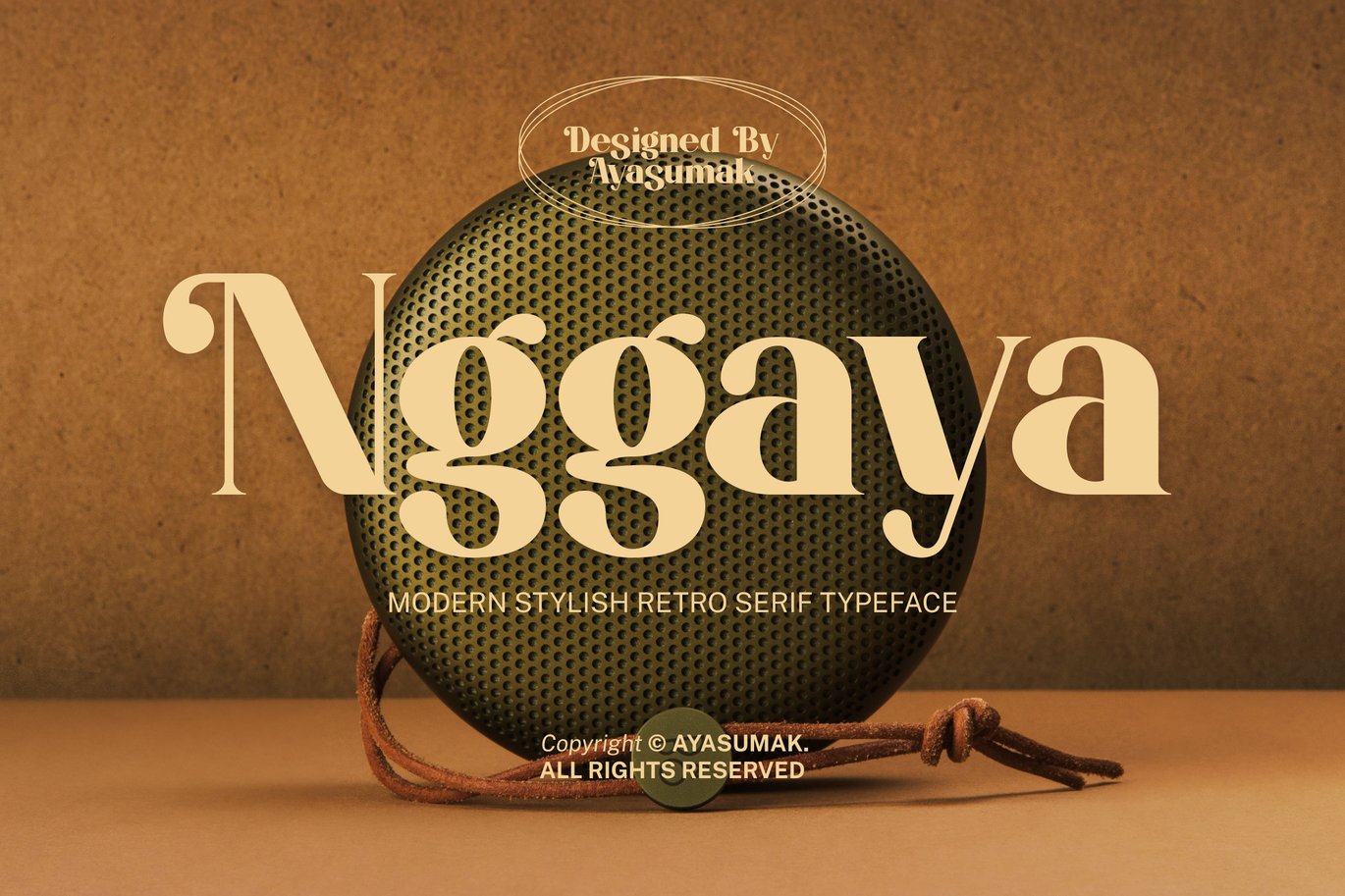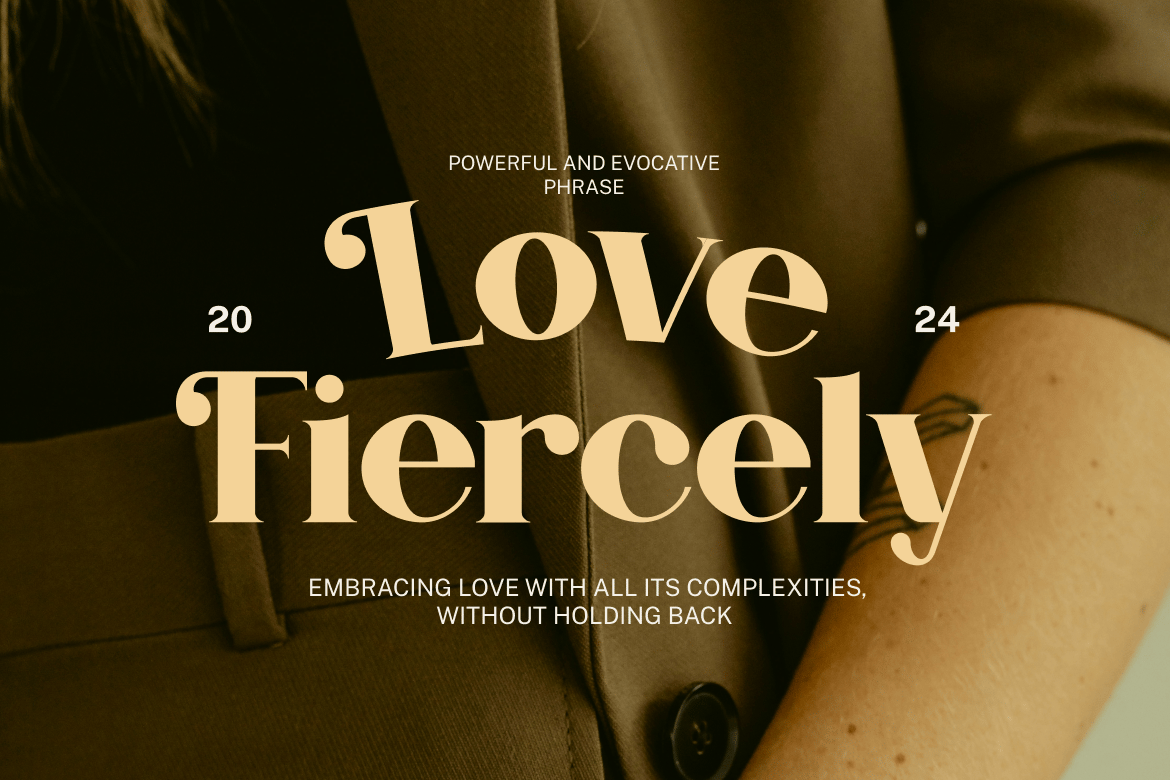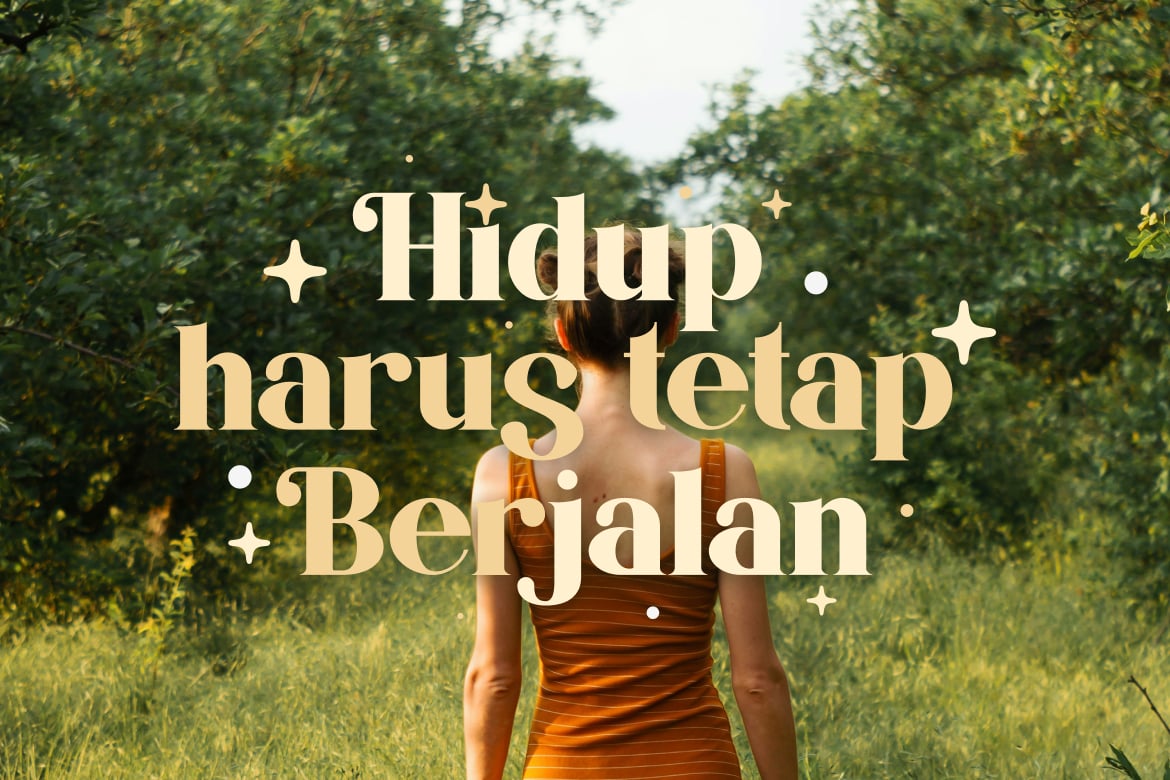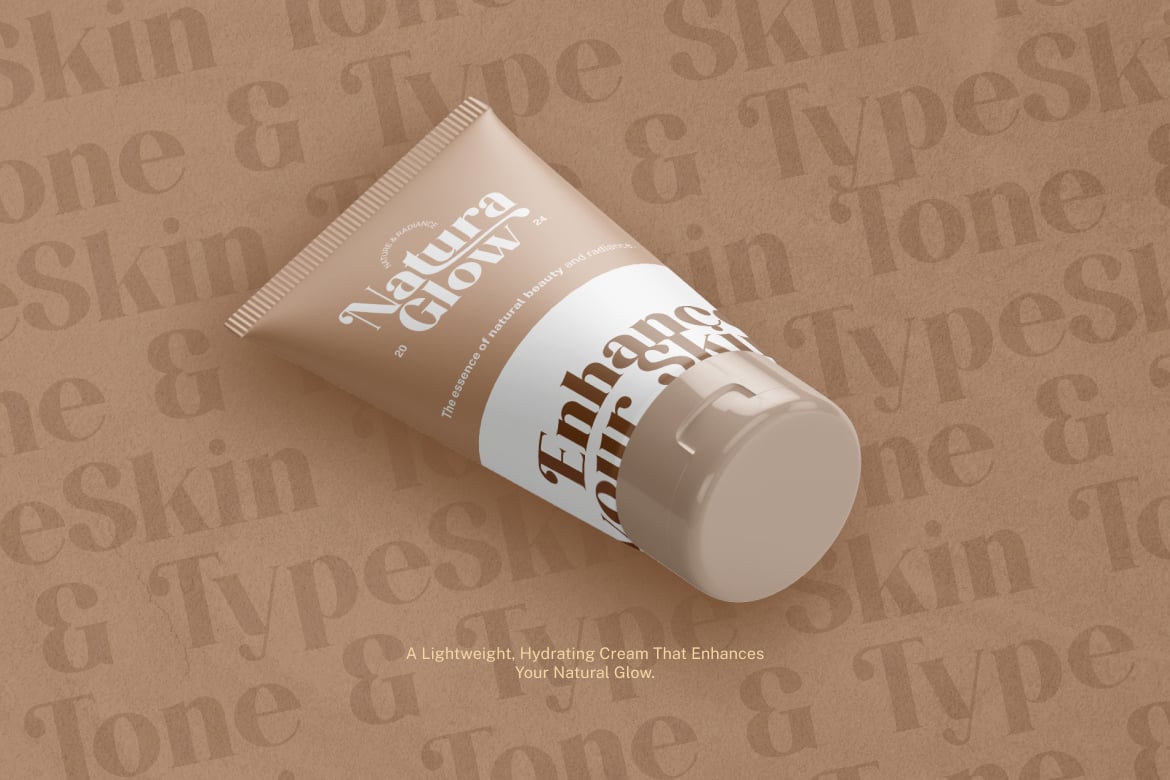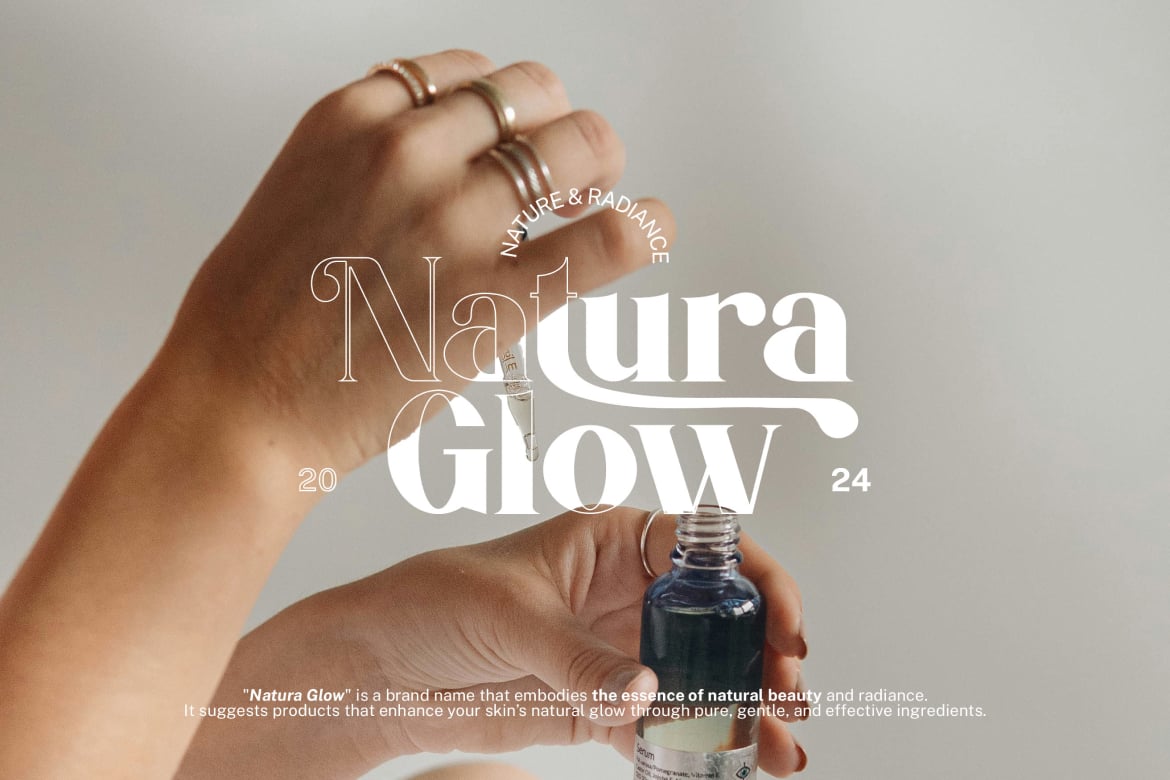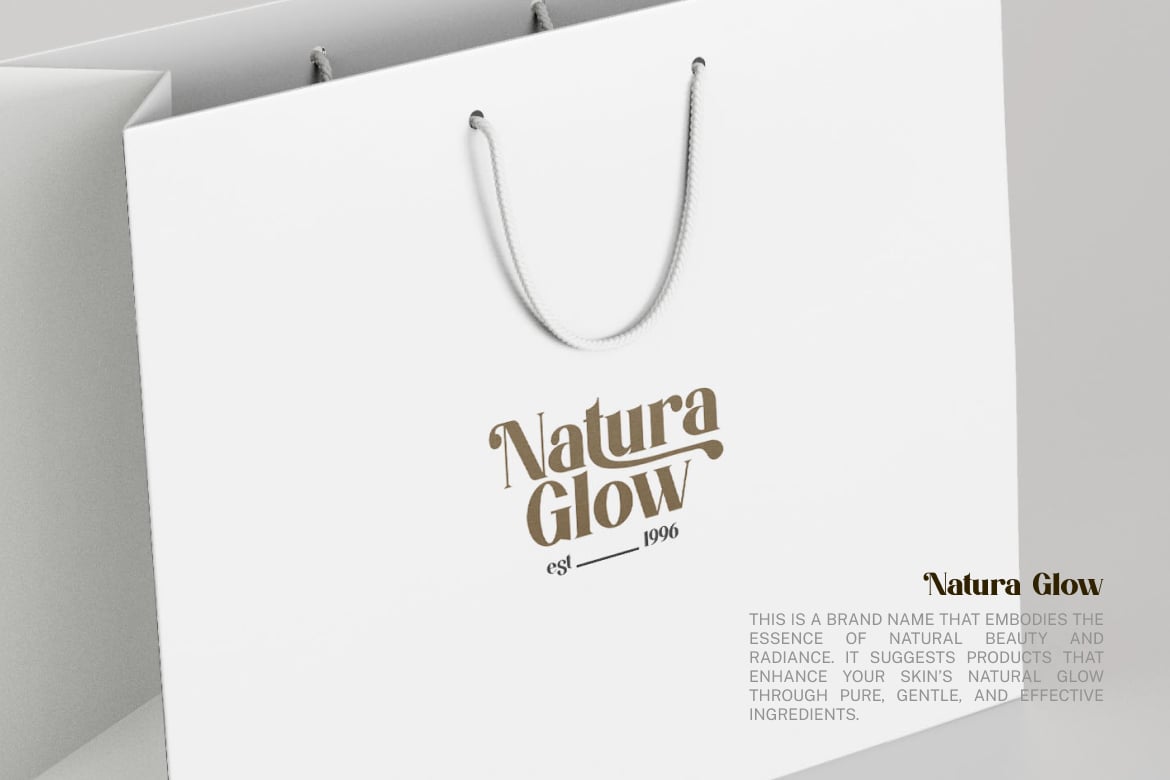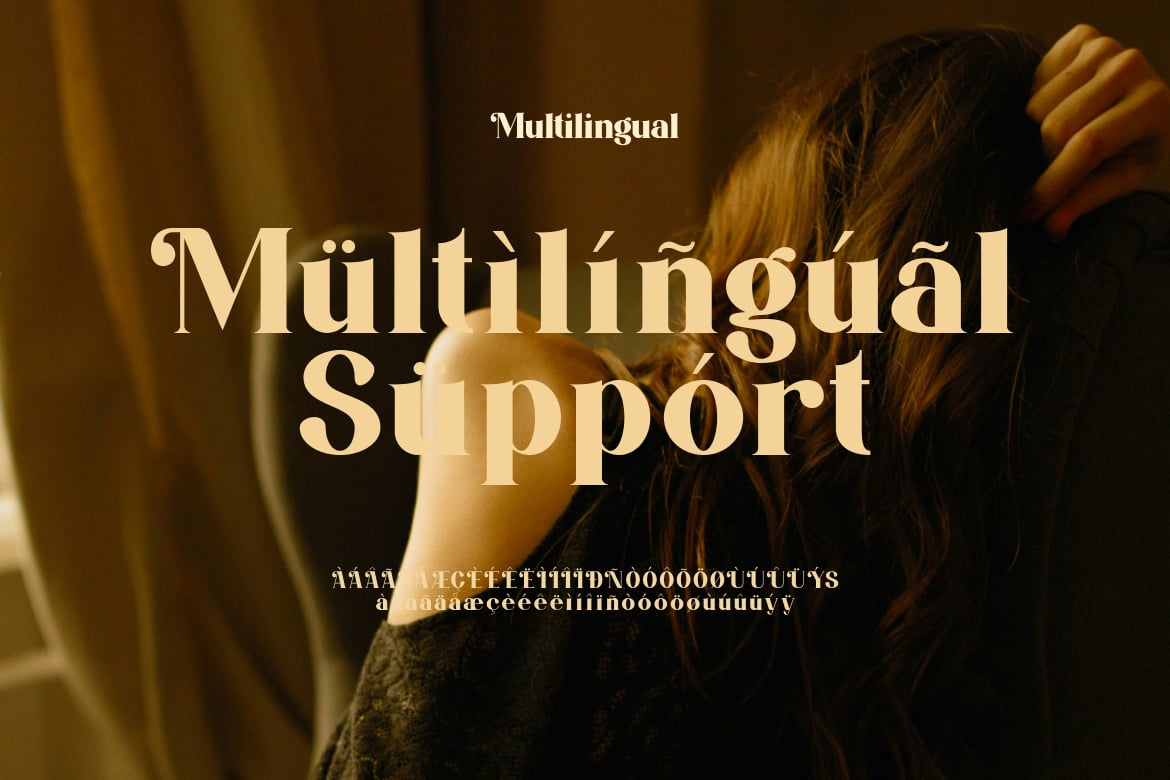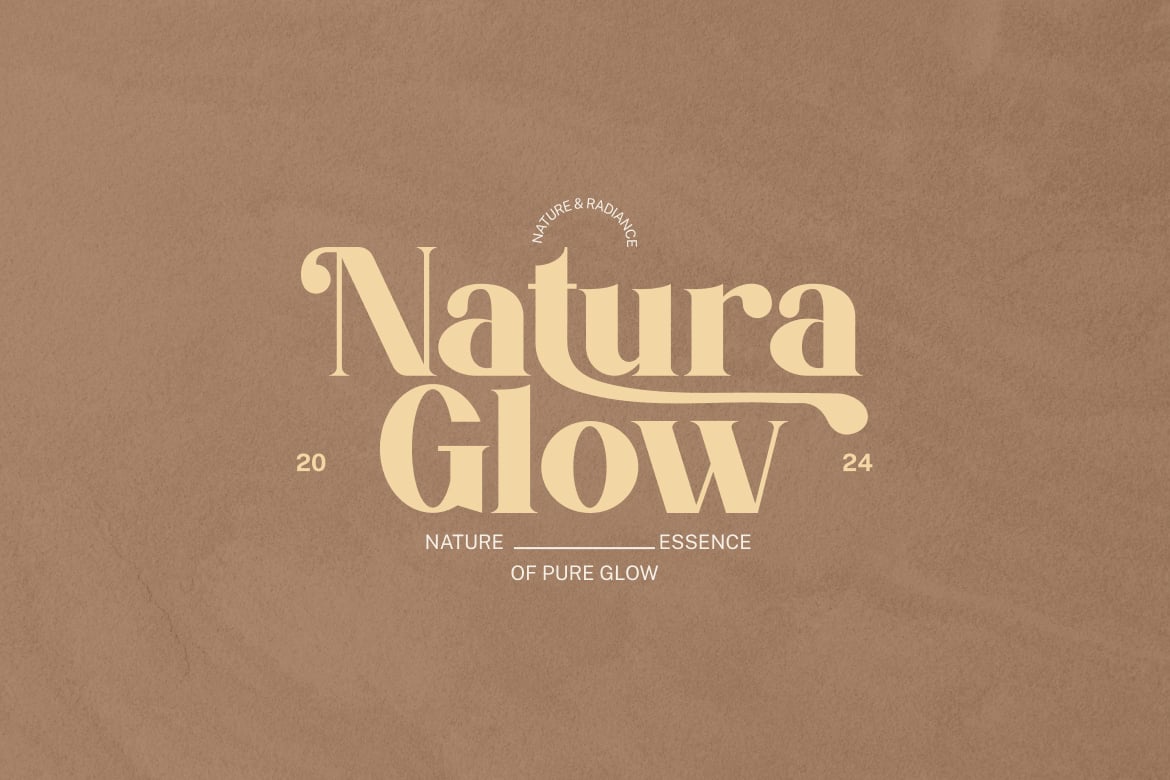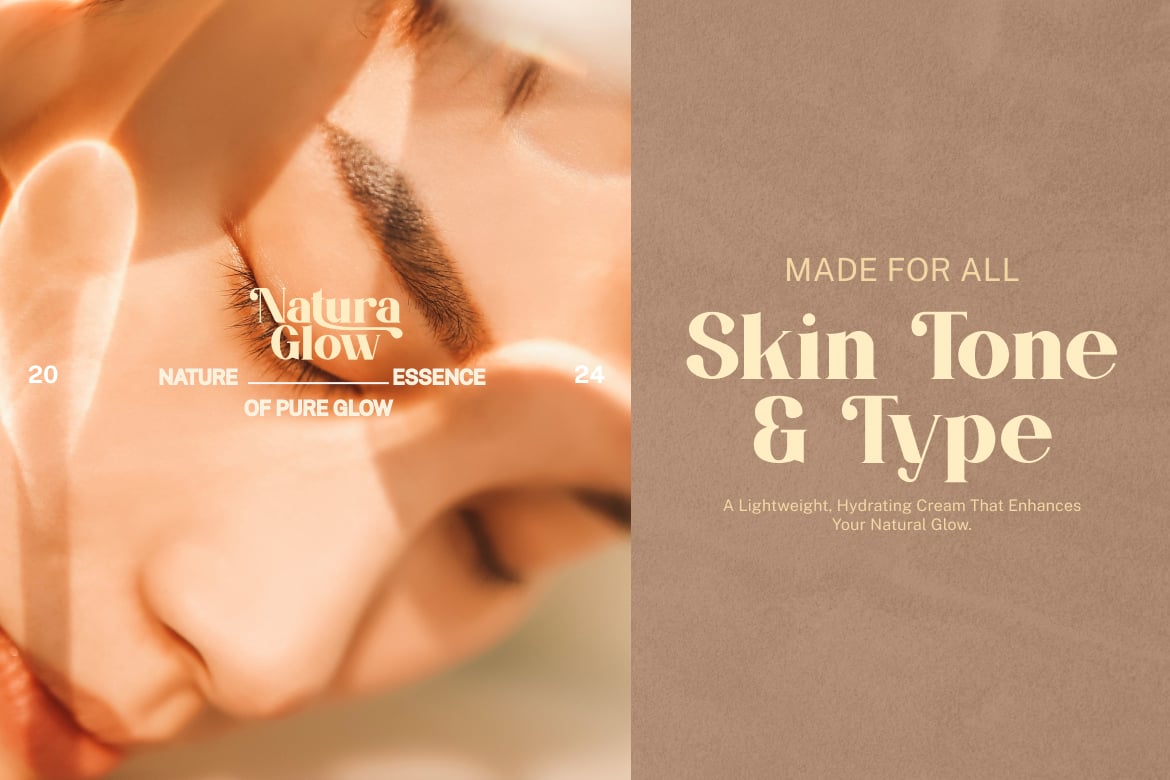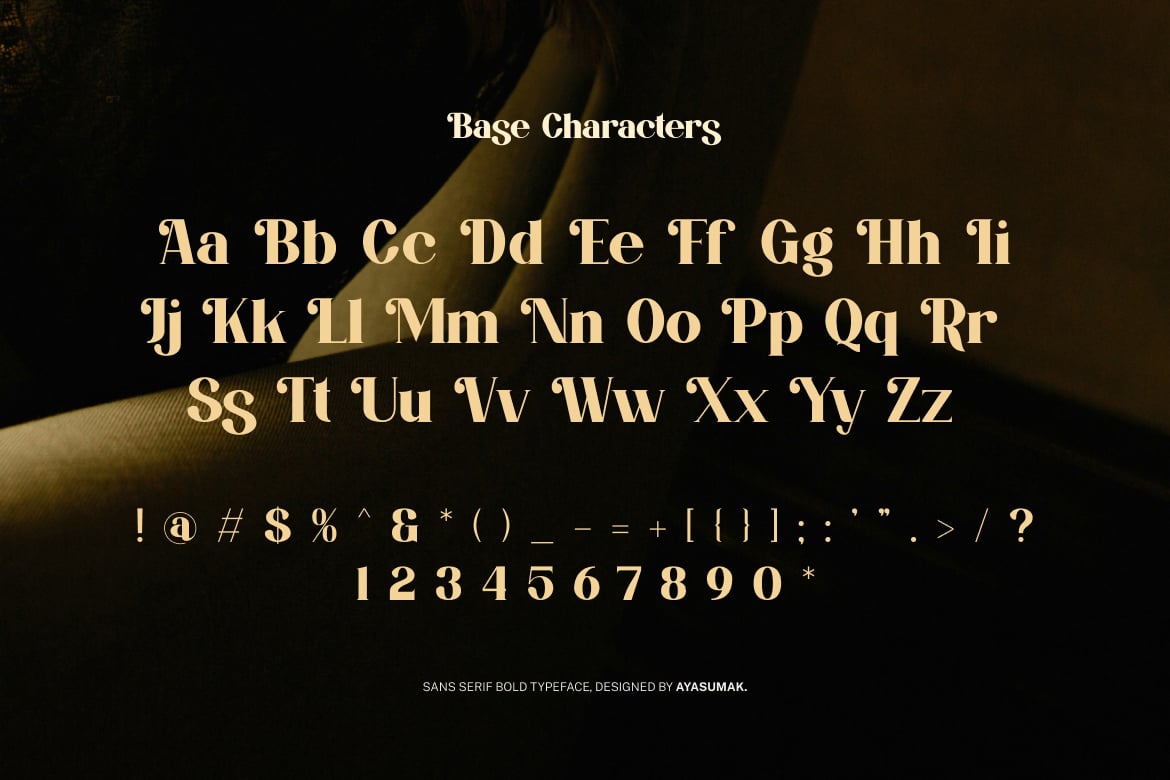
Nggaya – Stylish Retro Rounded Font
Introducing Nggaya – Stylish Retro Rounded Font – a Modern Professional Typeface excellent used for Heading or Title, Logotype, Merchandise, Clothing, Magazine, Beauty & Fashion Product, Cosmetic, Skincare and many more.